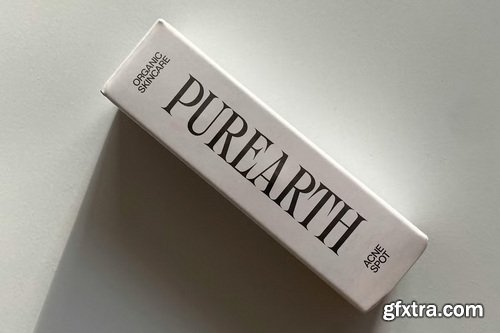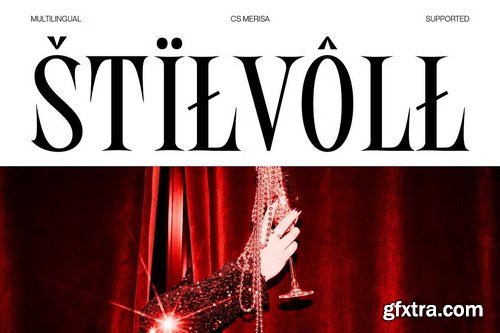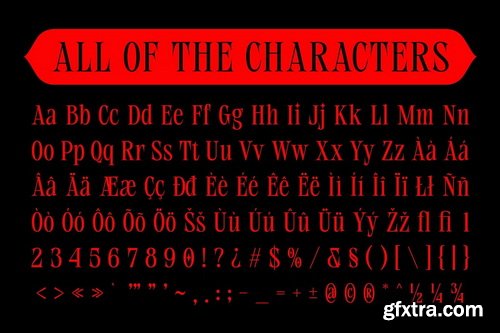
Modern Classic Serif with Long Serifs CS Merisa is a refined modern classic serif font that embodies sophistication and grace. With its elongated serifs and well-balanced proportions, it exudes a timeless elegance, making it a perfect choice for high-end and stylish designs. Whether used in branding, editorials, or luxury packaging, this typeface adds a touch of prestige and class.